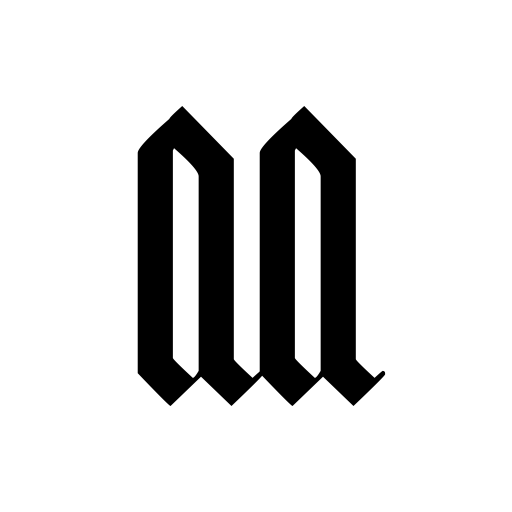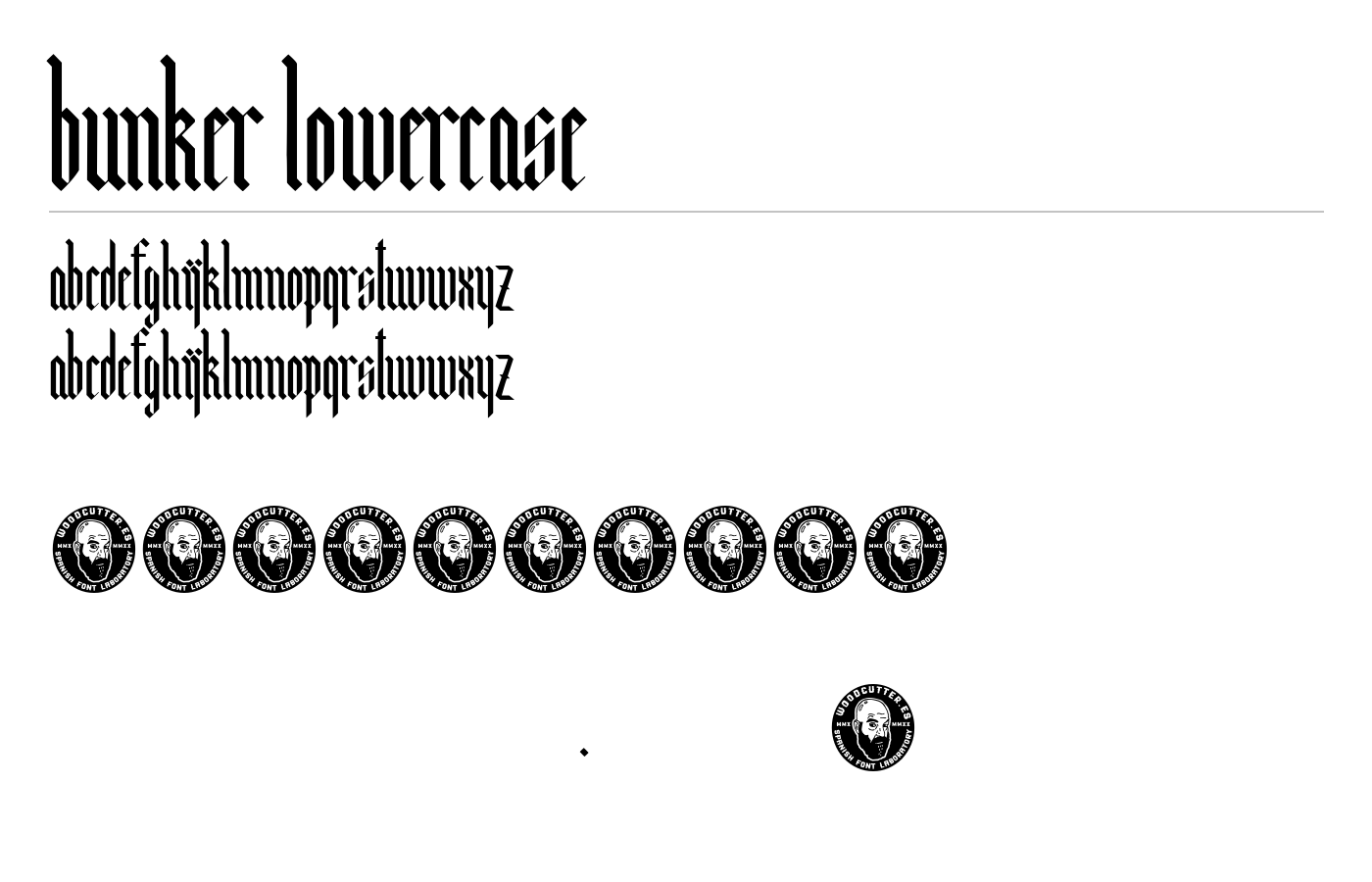
Bunker Lowercase is a condensed blackletter-inspired sans serif font with sharp, angular strokes and a tall x-height that gives it a striking, gothic character. Its high contrast between thick verticals and thin connecting lines, along with its tightly spaced letterforms, creates a dramatic and bold appearance ideal for vintage or alternative branding, posters, and editorial headlines. This font works best when you want to evoke a sense of tradition with a modern twist, lending a strong, edgy vibe to fashion, music, and lifestyle designs.
Bunker Lowercase Font
About Bunker Lowercase Font